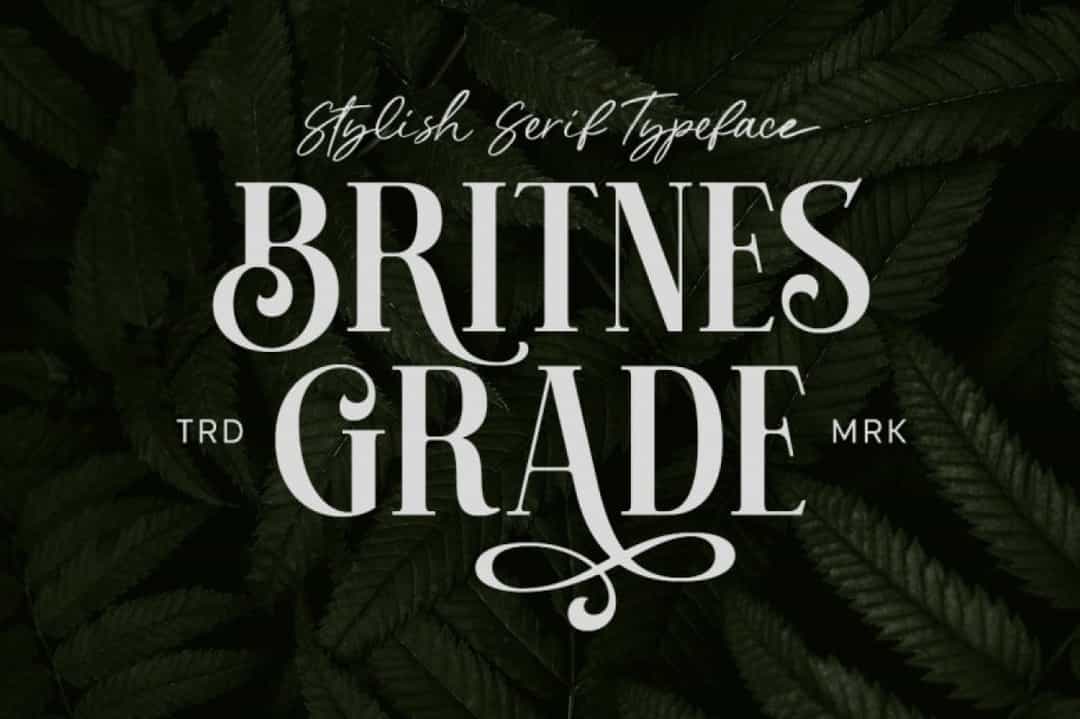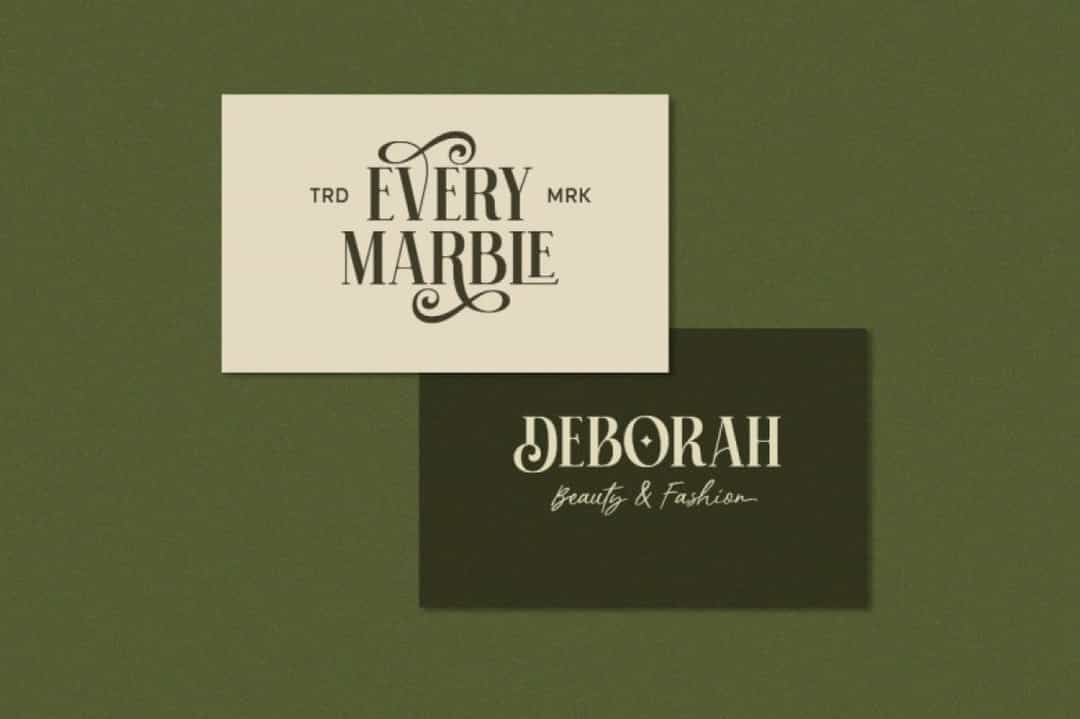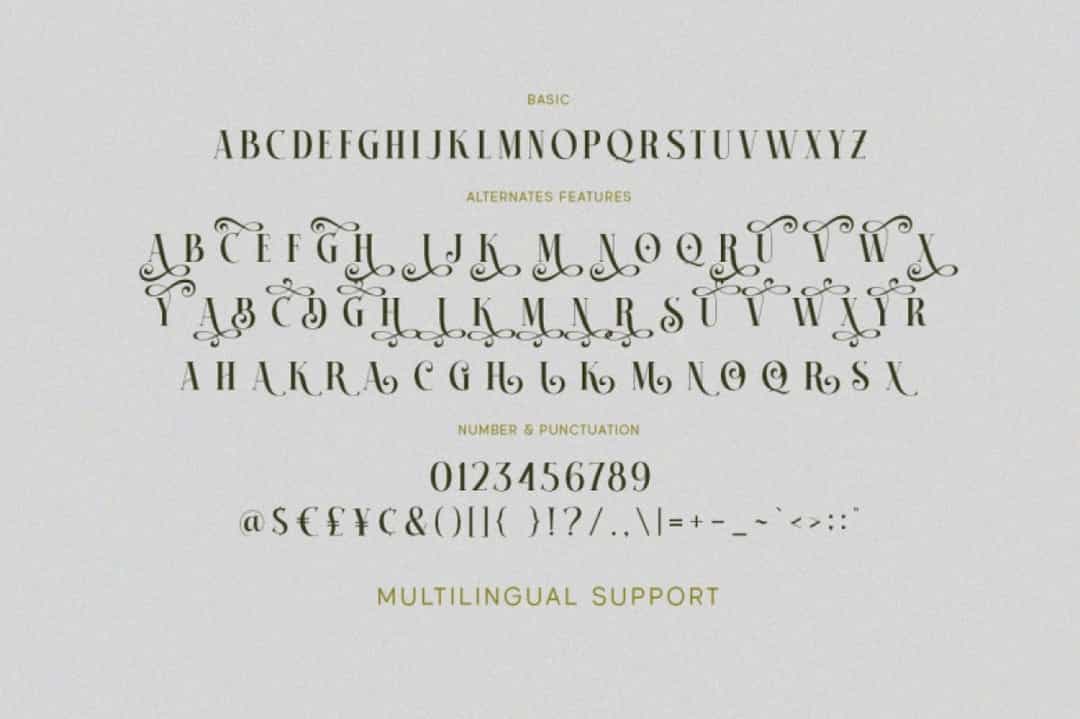
Britnes Grade is a trendy serif typeface renowned for its neat and clean appearance, made even more distinctive by intricate swirls and swashes that distinguish its unique character. Perfectly suitable for logos as well as formal applications like invitations, labels publications greeting cards books bridal invitations packaging fashion makeup stationery novels stationery books stationery novels stationery publications etc this font provides endless design possibilities!